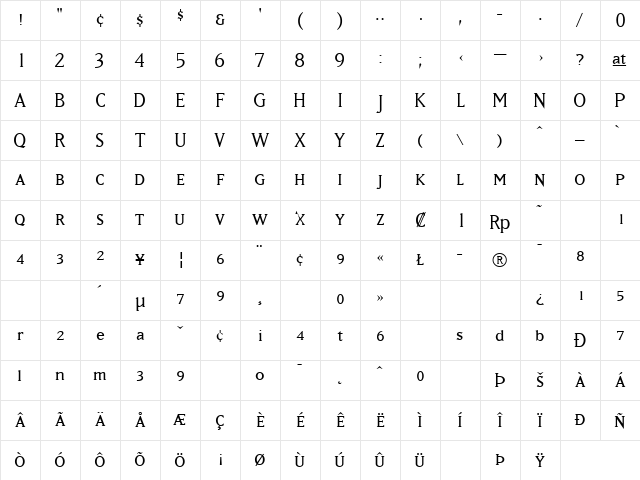
Complete MatrixBookSmallCaps Regular glyph index. Displaying only characters natively supported by MatrixBookSmallCaps Regular font.
MatrixBookSmallCaps is a composed and adaptable typeface that performs quietly and consistently across a wide range of design contexts.